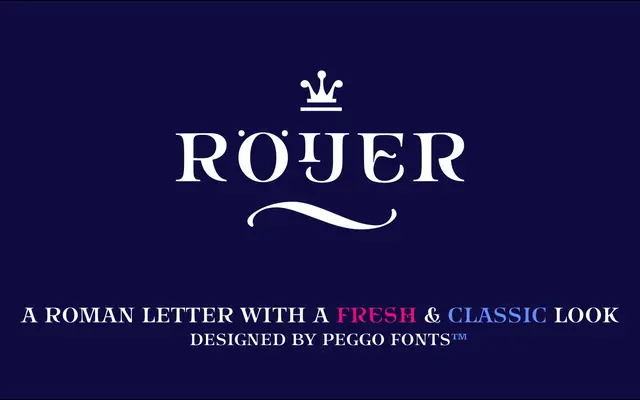
Röijer
Peggo Fonts · Pedro González
A decorative display typeface with Lombardic and Art Nouveau influences, offering dual capital models and a volumetric variant for branding and luxury applications.
Designed by Pedro González under the creative direction of Marcela Aguilera, Röijer provides two sets of capitals per letter: a formal Roman style in the lowercase box and a more glamorous alternative in the uppercase box. The family ships in four variants including a volumetric cut alongside ornament and dingbat sets, each containing 541 glyphs with discretionary ligatures, oldstyle figures and full fraction support. Positioned for branding, label design and headline work in fashion and luxury contexts.
Röijer is a display typeface drawing on Lombardic and Art Nouveau influences, with dual capital models and volumetric variants that place it firmly in the decorative display category rather than text use.